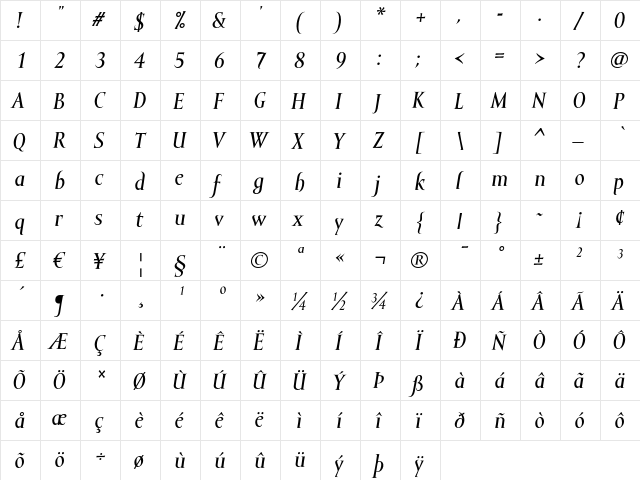
Mramor Light Light Bold Italic Font Preview
Mramor Light Light Bold Italic
Mramor Light Light Bold Italic Font Details
| Style | Light Bold Italic |
Design Context for Mramor Light Typeface
Mramor Light is a composed and adaptable typeface that performs quietly and consistently across a wide range of design contexts. The dynamic lean of this cut emphasises speed and emphasis in any layout. Its bold stroke weight gives it real presence on the page.
Pro Tip: Try Mramor Light for annotation and caption copy alongside an upright companion — the contrast in angle creates a dynamic but ordered typographic system.